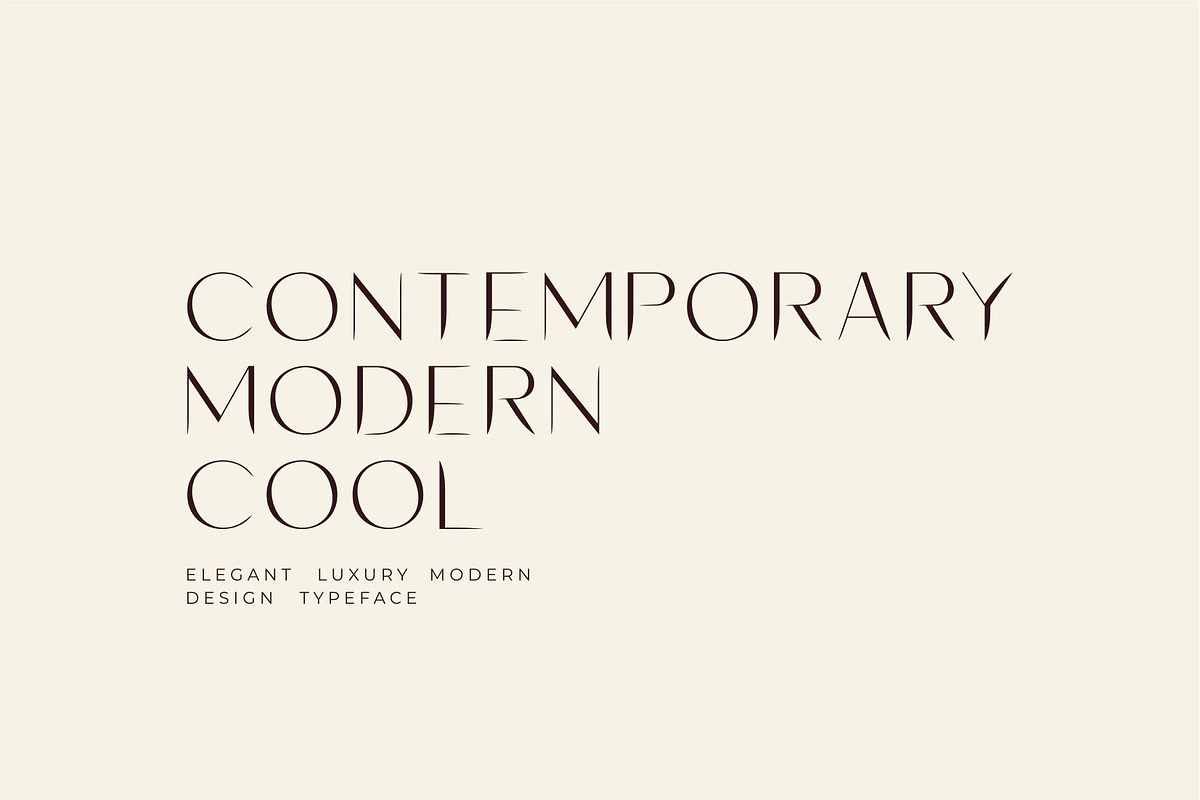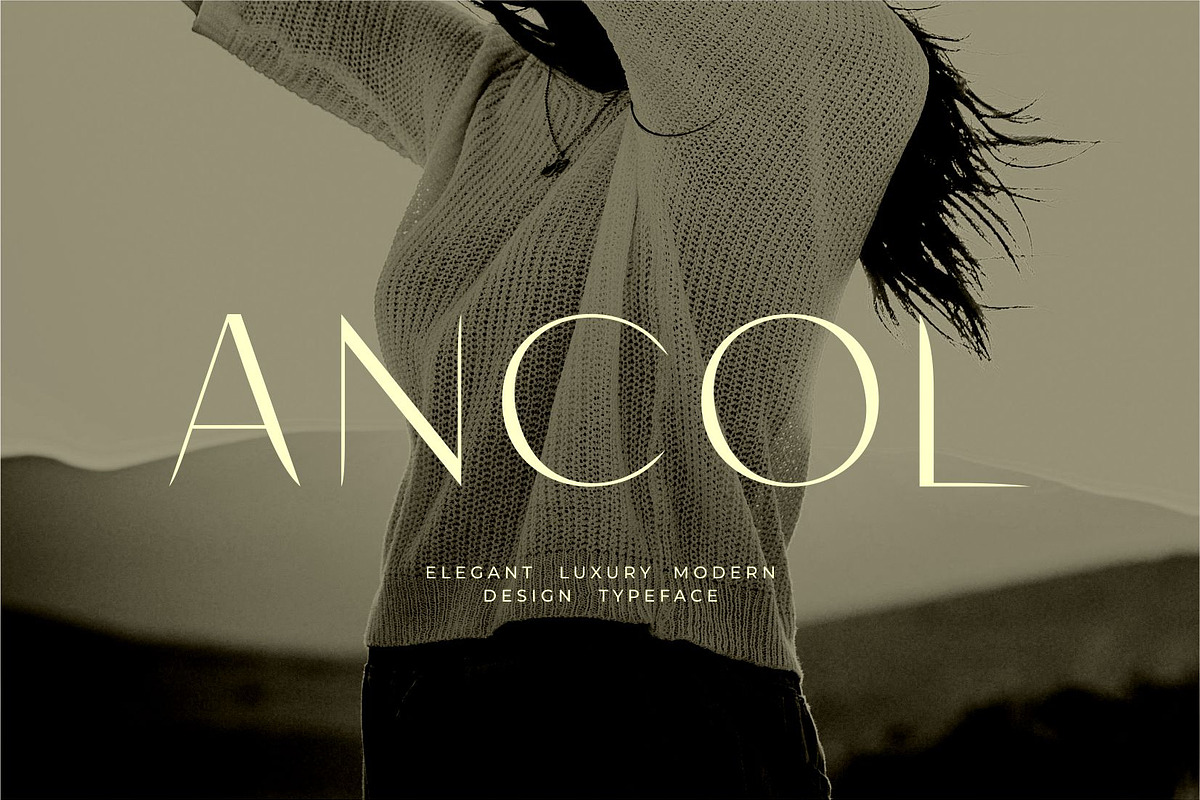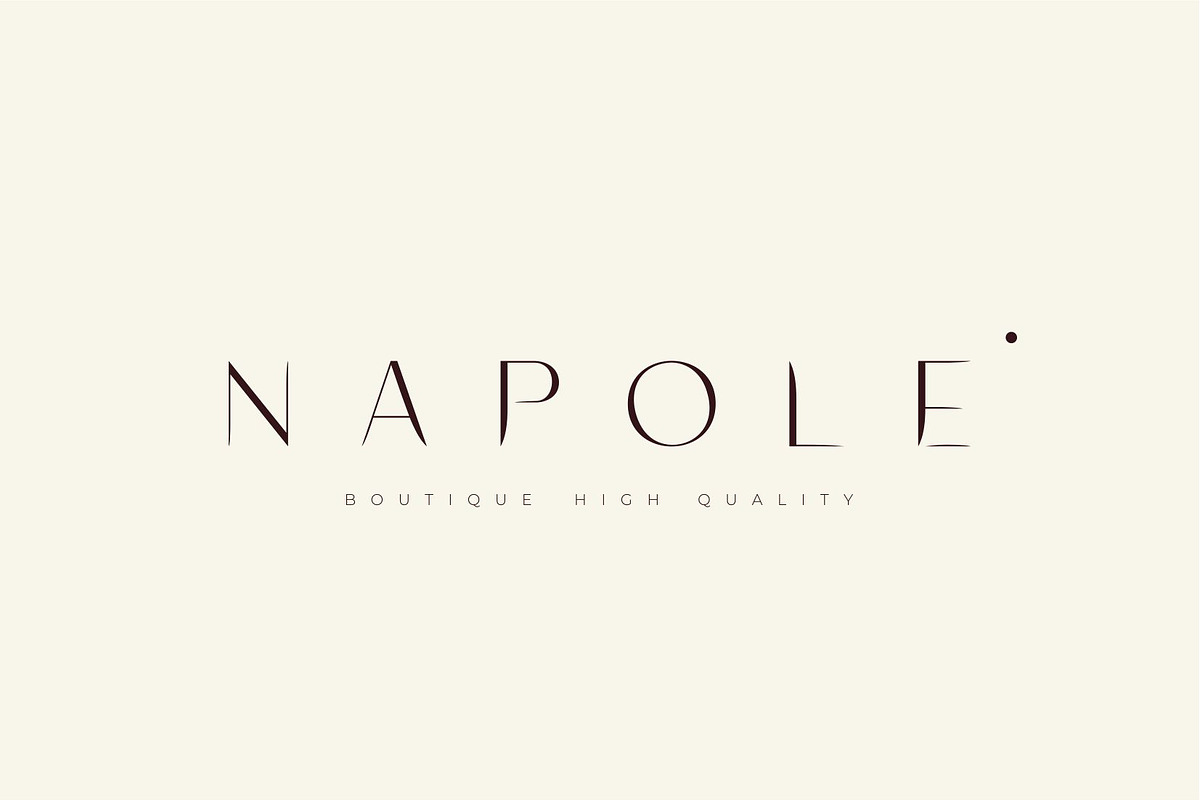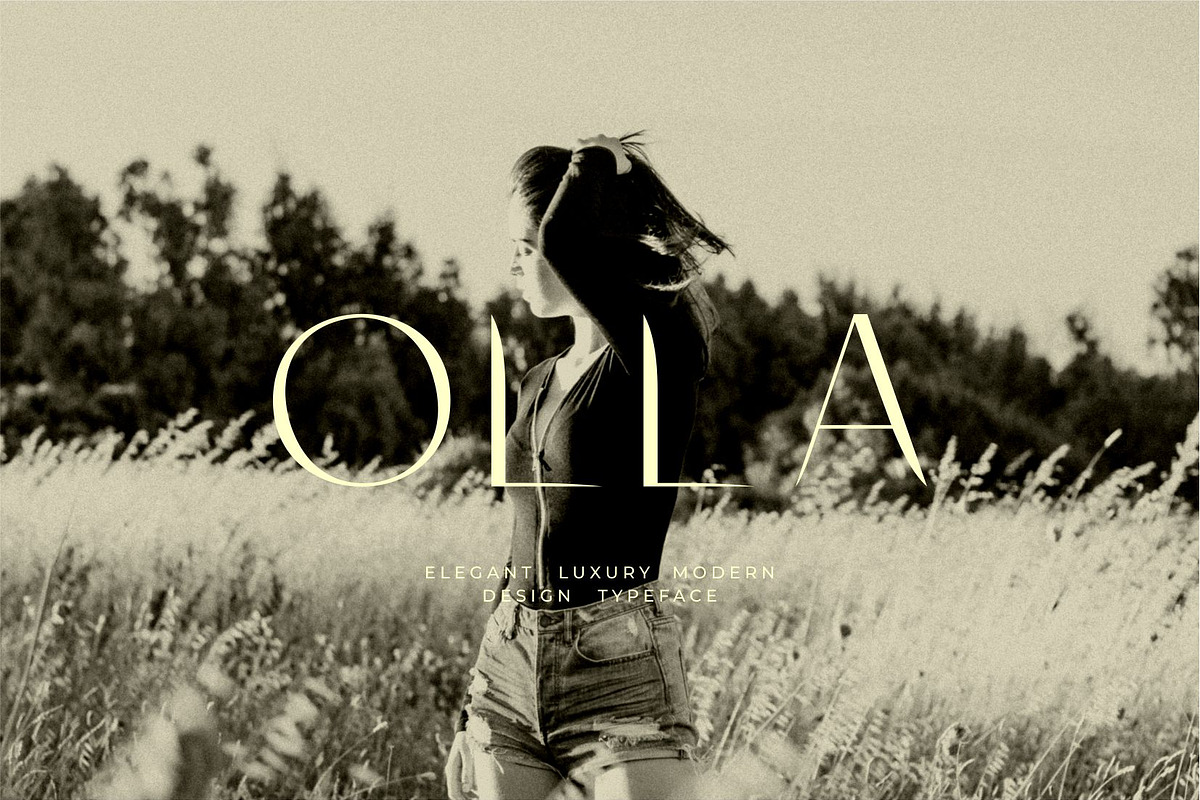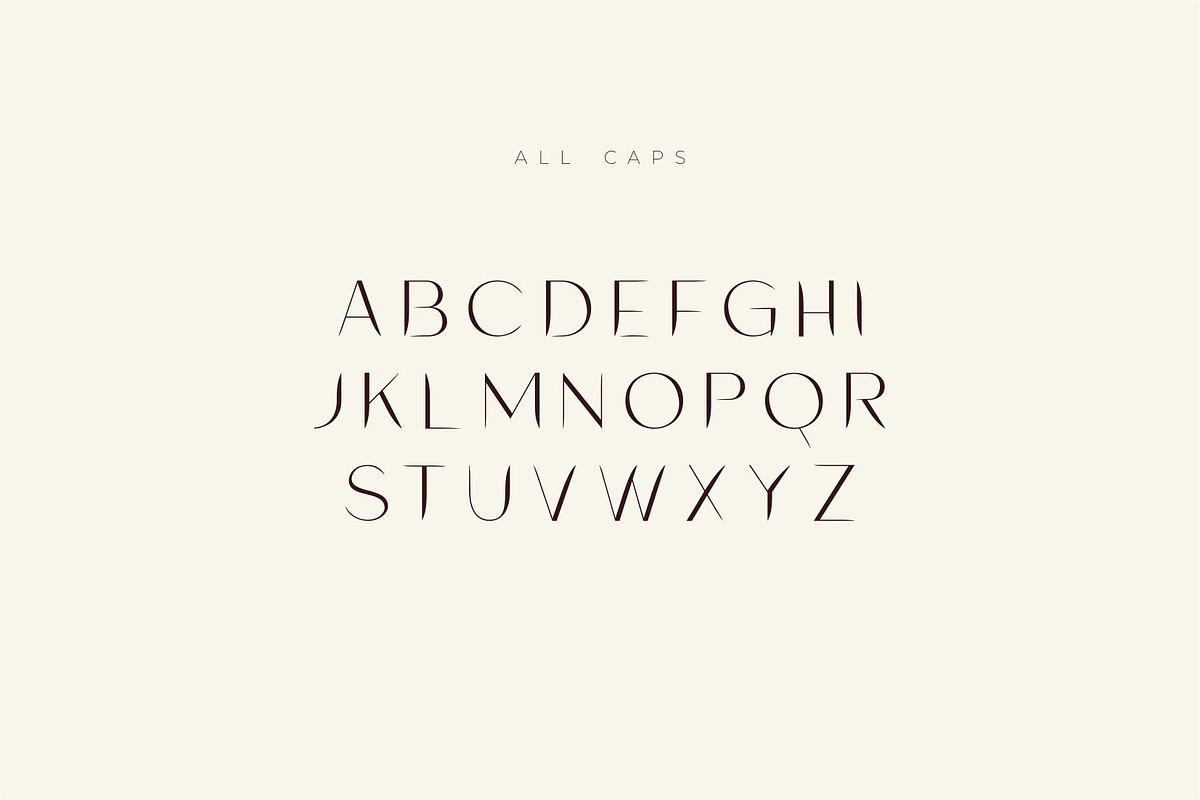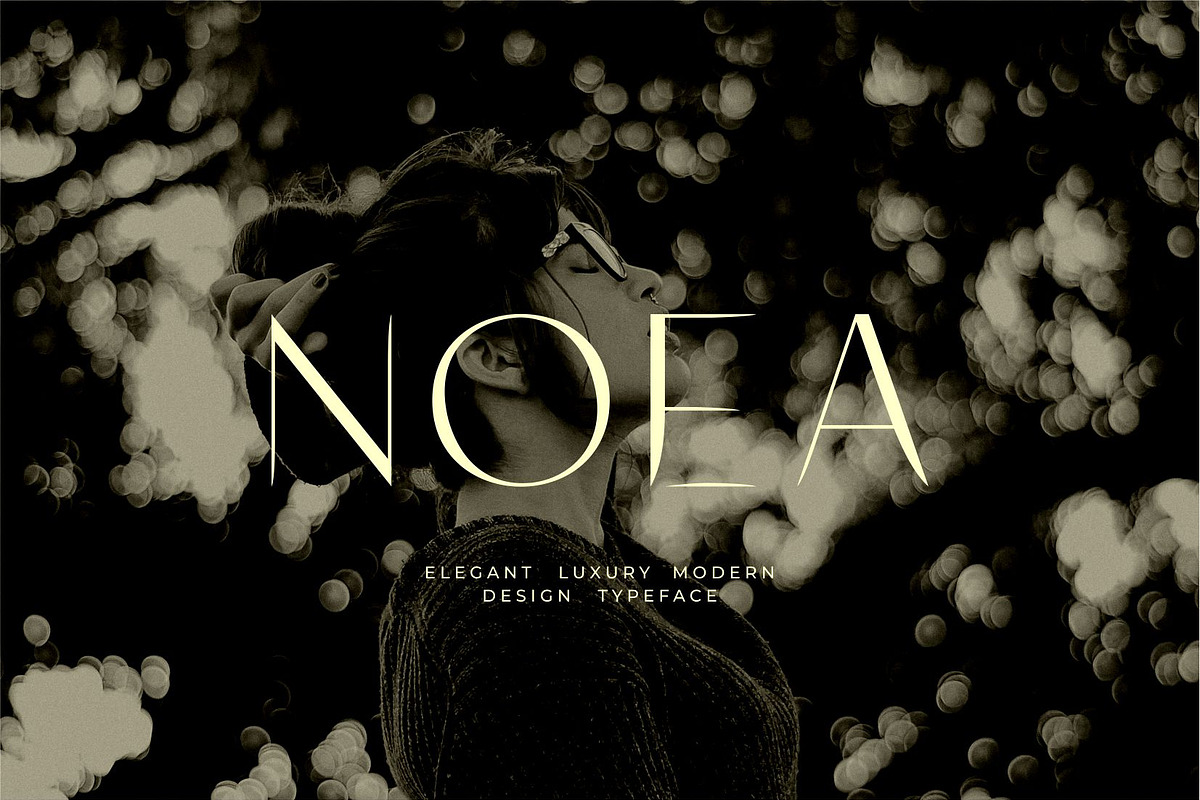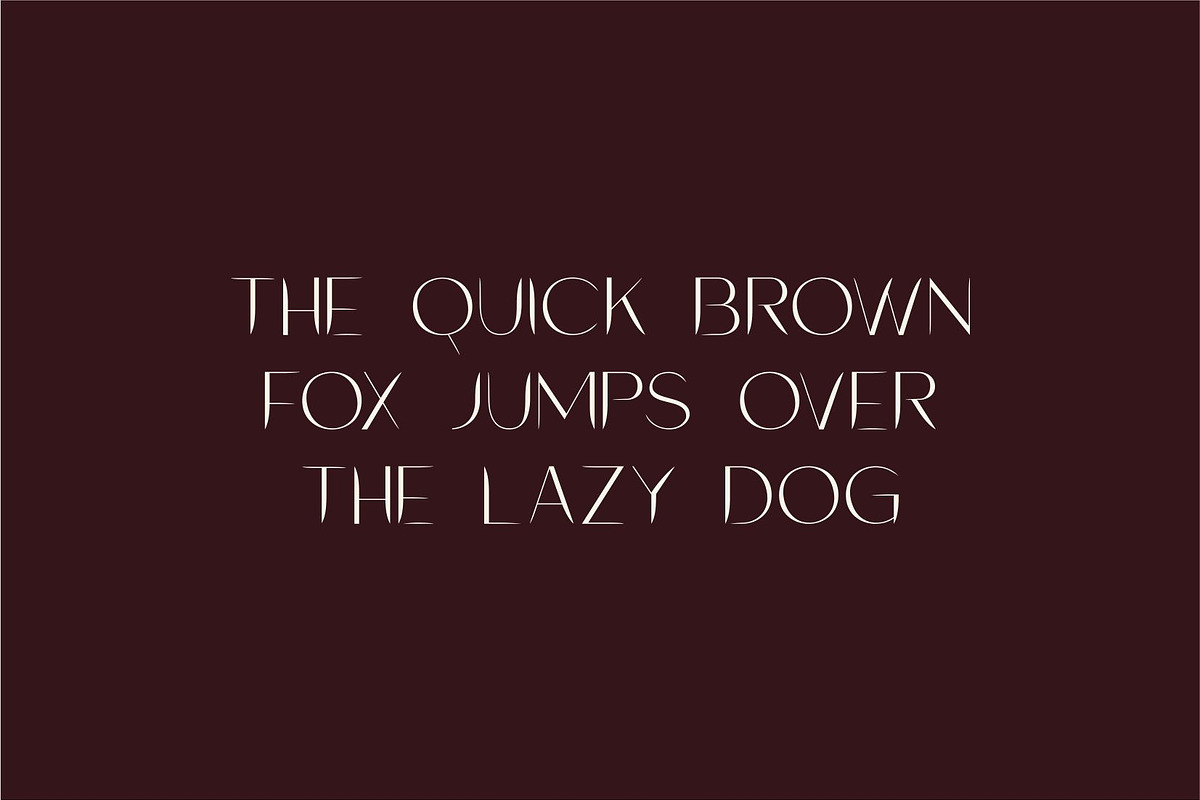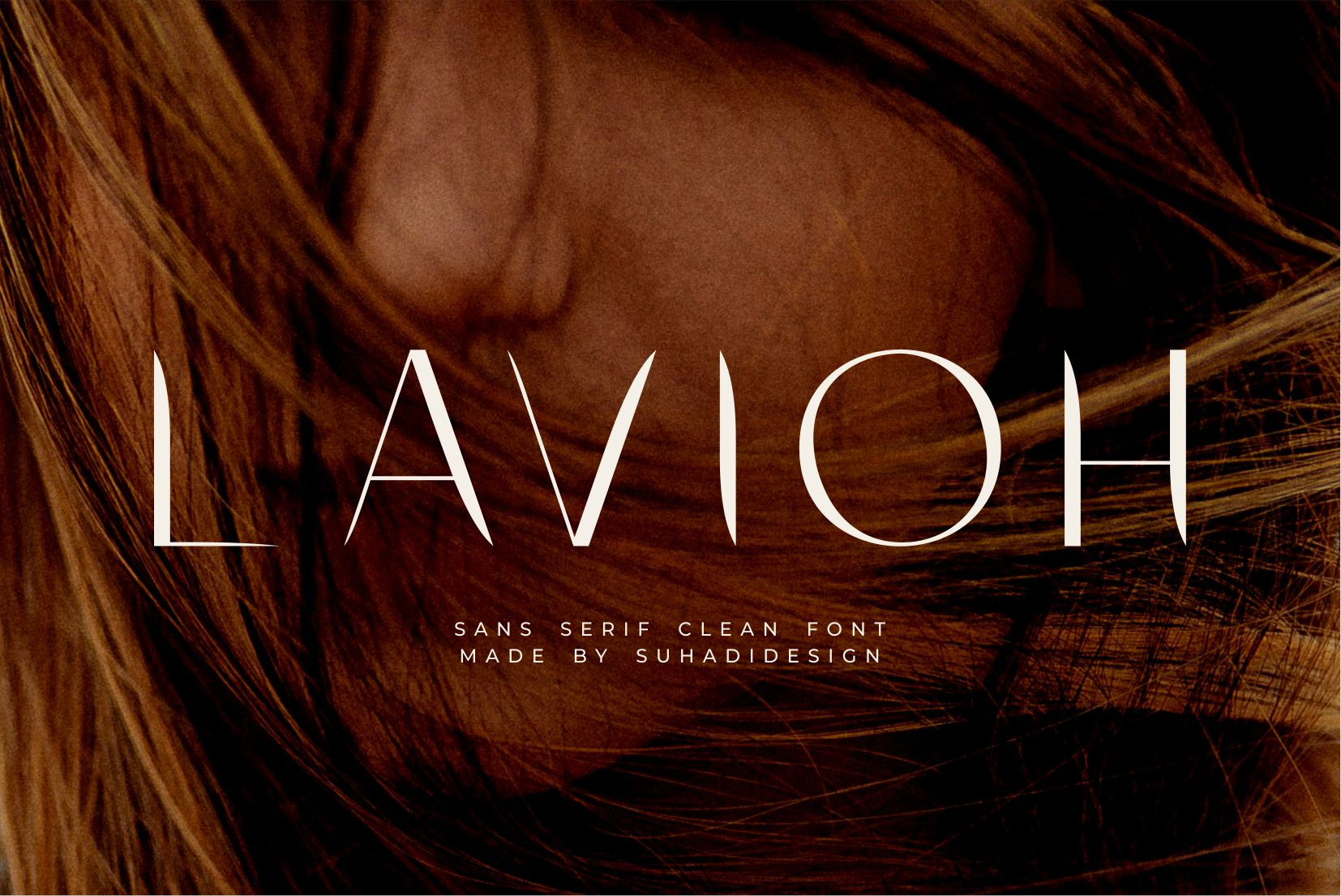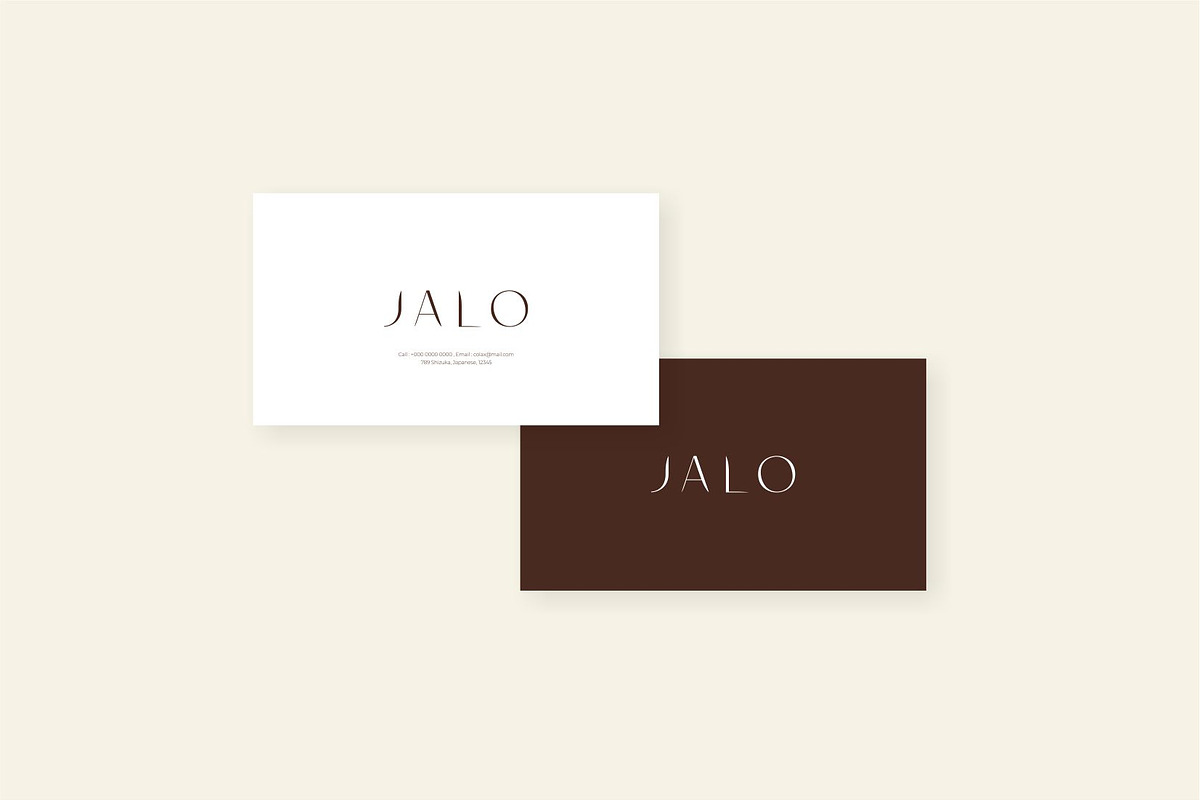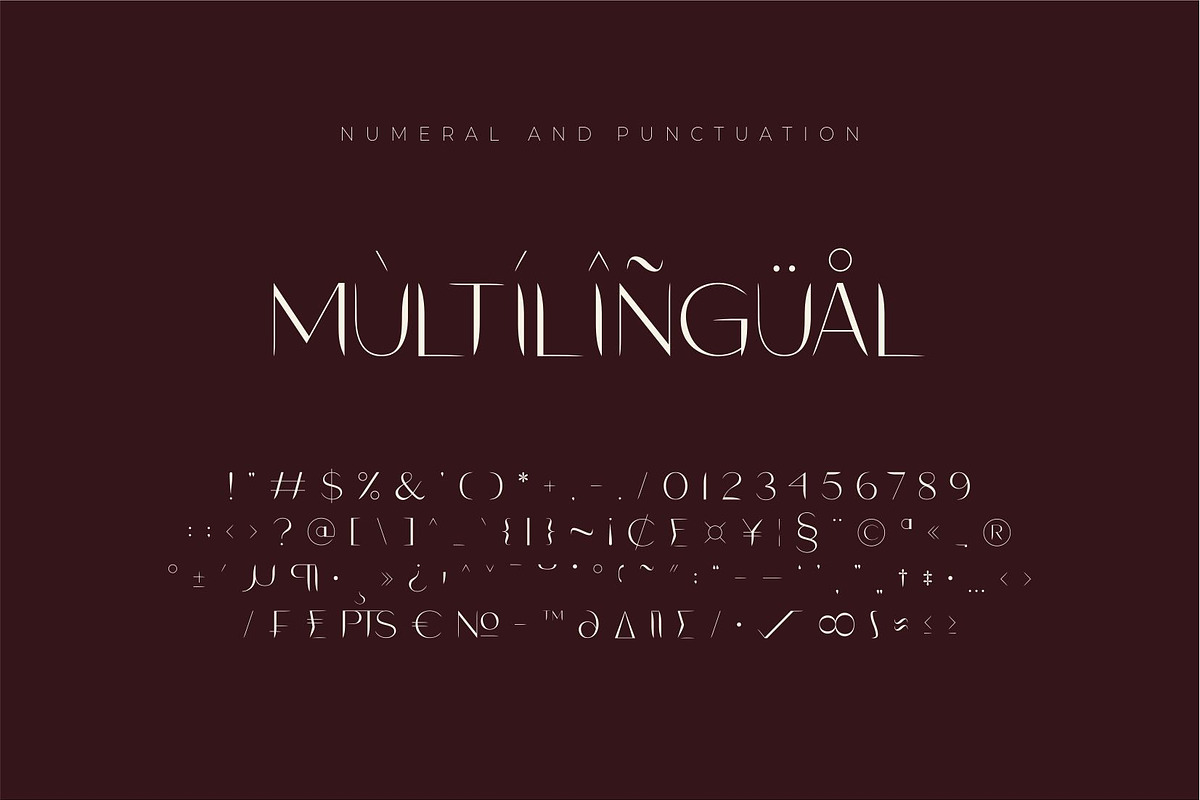
Lavioh - Sans Serif Clean Font
Hello, ladies and gentlemen! The latest stylish modern font has arrived, and it's being sought after by many women and men. It's the Lavioh font. Lavioh is a minimalist and stylish sans serif font. With its clean and contemporary design, this font has become a favorite on the market. We've kept this font looking elegant, classy, and stylish. Lavioh is the perfect choice for cosmetics, beauty, brands, logos, wordmarks, magazines, designs, books, publications, branding, brand names, business cards, social media, classy designs, newspapers, branding, beauty, and other projects. Lavioh is here to elevate the quality of your designs.
• All Capital Letters • Multilingual Support • Numerics • Punctuation